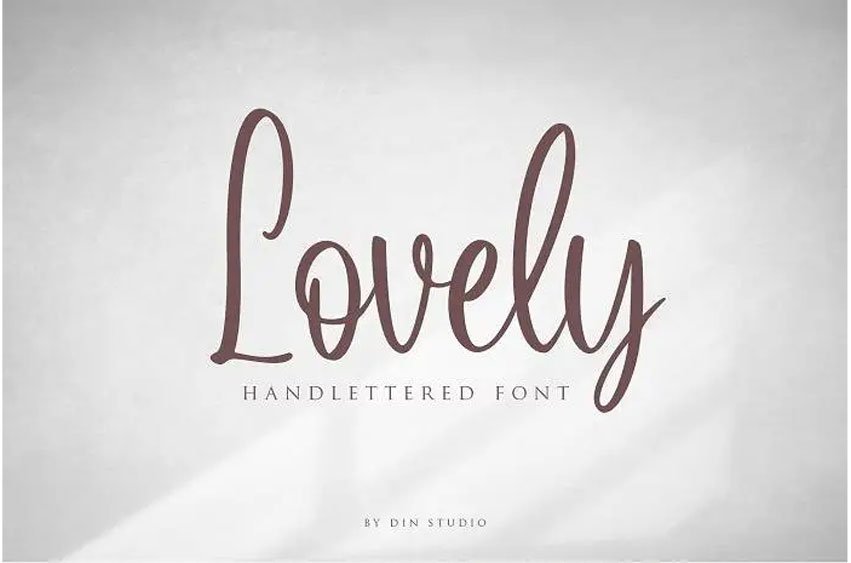
Lovely Font suitable for nice project design? The answer you are looking for is Lovely Script! The Lovely Script font is suitable for many project designs.
For example: posters and banners; logos and book covers; headings, printed products and merchandise, as well social media stuff too. And so on – you name it! To see more wonderful applications for this font, just have a look at its preview.